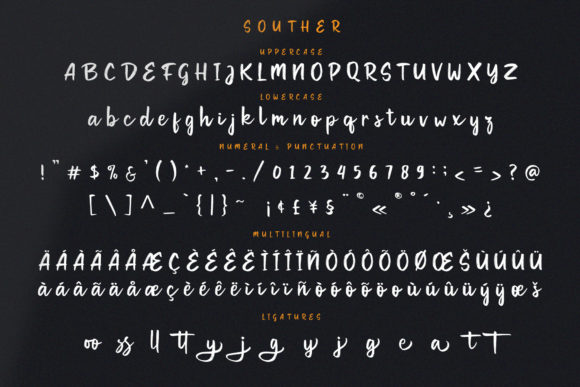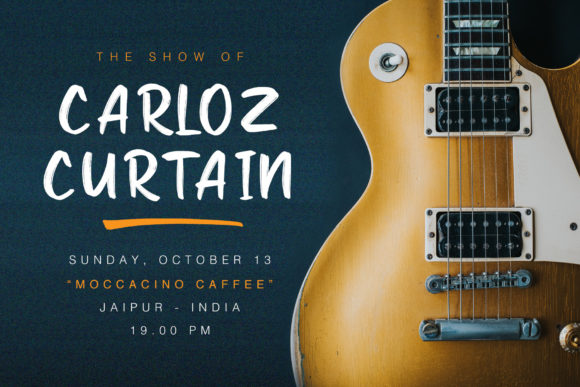
HomeScript FontsSouther Font Script Fonts Souther Font FacebookXPinterestWhatsApp Souther Font Poster 2 Souther Font Poster 3 Souther Font Poster 4 Souther Font Poster 5 Souther Font Poster 6 Souther Font Poster 7 Souther Font Poster 8 Souther Font Poster 9 About Souther Font Souther is a sweet and charming script font that’s perfect for adding an authentic vibe to any design idea! DOWNLOAD NOW People also explored Cactus Font Valentine Font Great Font Babyhome Font Brush Elementary Font Heartworld Font Benghane Mastugan Font Juliet Font Hallo Kids Font 302 0 TagsSouther Font Previous articleRaregold FontNext articleLetter Home Font LEAVE A REPLY Cancel reply Comment: Please enter your comment! Name:* Please enter your name here Email:* You have entered an incorrect email address! Please enter your email address here Website: Save my name, email, and website in this browser for the next time I comment. Personal Use Free Abuget Free Script Personal Use Free Read more about this font Glosery Personal Use Free Read more about this font Banana Valentine Personal Use Free Read more about this font Zero Panzer Personal Use Free Read more about this font BLOG Top 10 Handwritten Fonts That Elevate Your Designs Top 10 Handwritten Fonts That Will Elevate Your Designs Handwritten fonts bring a warm, personal touch to every creative project. Whether you're designing logos, invitations,... Modern Sans-Serif Fonts That Brands Love in 2025 Transform Your Website: Elevate Your Typography with 7 Best Web Font Generators 5 Fonts That Will Dominate Design Trends in 2026